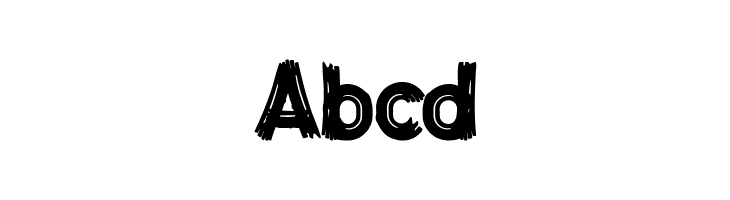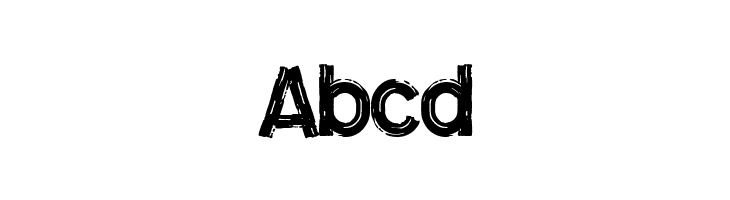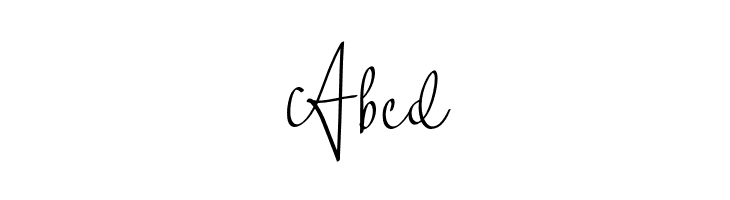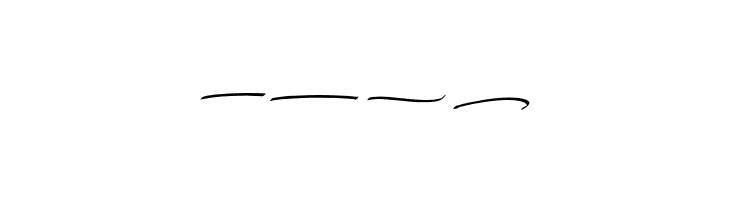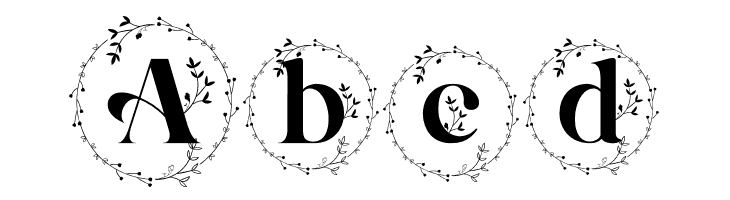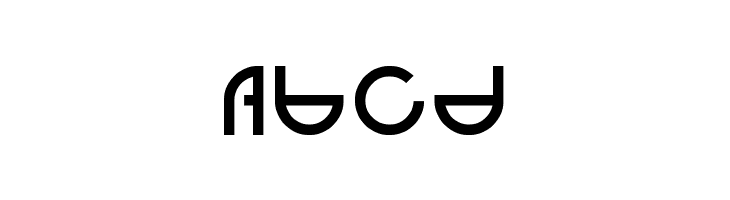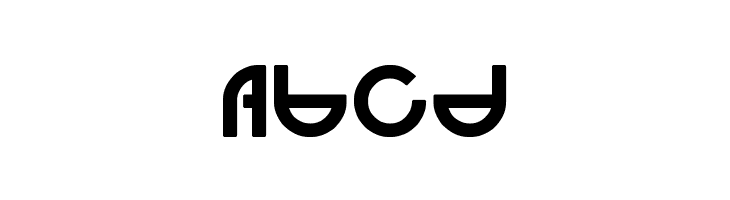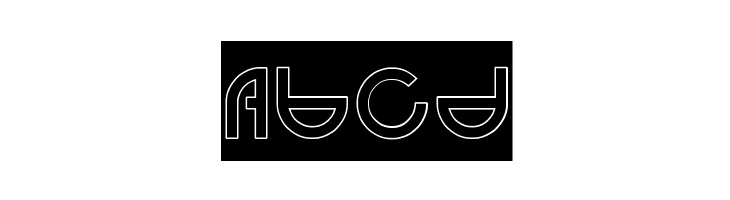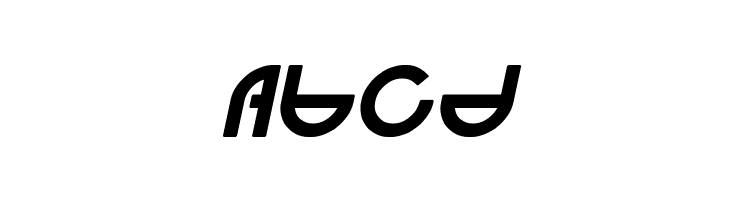
• Alexandreas
A bold, expressive script font with a handwritten style.
• Alexandria
An elegant, flowing script font with a calligraphic style.
• alexandria ann
A fluid, handwritten font with an organic and casual style.
• Alexandria Monogram
A monogram-style font with bold serif letters encased in decorative circular frames.
• Alexandria Rose
An elegant cursive script font with fluid, connected letters and graceful curves.
• Alexandria Script-Medium
A bold, expressive script font with interconnected, flowing letters.
• Alexandria-Italic
A graceful and flowing script font with a handwritten style.
• AlexandriaFLF
• AlexandriaFLF-Bold
A bold, classic serif font with strong vertical lines and subtle curves.
• AlexandriaFLF-BoldItalic
A bold and italicized font with a dynamic and elegant style.
• AlexandriaFLF-Italic
A refined italic font with elegant, slanted characters and smooth curves.
• Alexandrines Demo
An elegant script font with sweeping curves and high contrast, perfect for sophisticated designs.
• Alexandroupoli
A dynamic cursive script font with elegant, fluid strokes.
• Alexandry
A graceful, handwritten script font with elegant curves and fluid connections.
• Alexandry
An elegant, flowing script font with smooth, cursive strokes.
• Alexandry Swash
A decorative design with elegant, flowing lines and intricate swirls.
• AlexandrySwash
An elegant, flowing font with sophisticated swashes and decorative flourishes.
• Alexaniri 2.0
A rugged, distressed font with a hand-drawn, textured style.
• Alexaniri_demo
A bold, brush-textured font with a dynamic, hand-drawn style.
• Alexaniri_demo
A bold, brush-like font with a dynamic and textured appearance.
• Alexanna